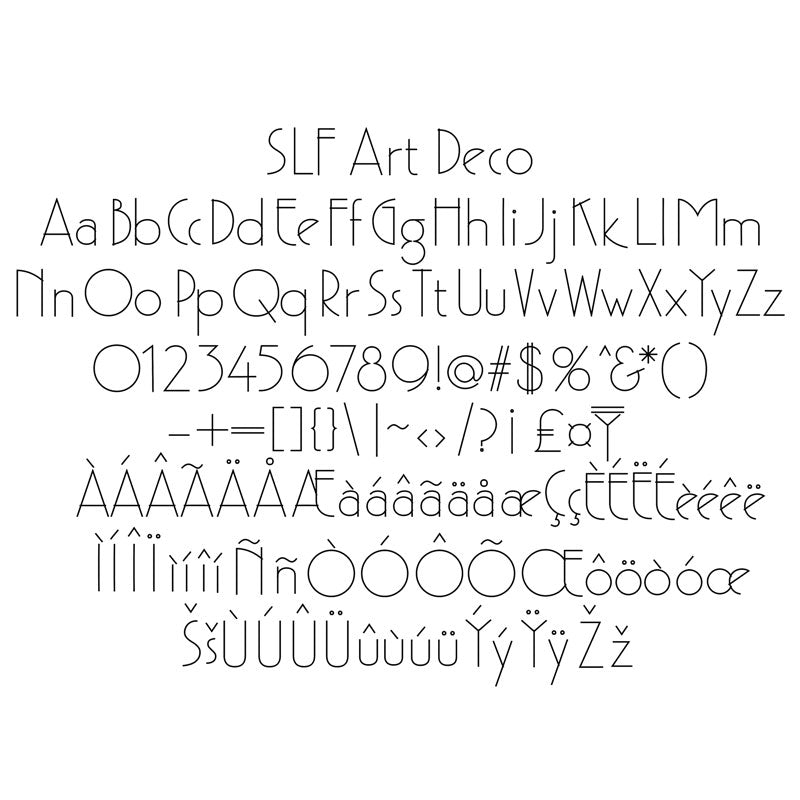
SLF Art Deco – Vintage-Inspired Single Line Font for Engraving & Design
SLF Art Deco is a bold, geometric single line print font inspired by streamlined 1920s and 1930s design. Its stylish architectural letterforms add a distinctive vintage flair to engraving, scoring, CNC routing, and creative craft projects. Ideal for signage, labels, décor pieces, event invitations, and custom gifts that demand eye-catching typography.
This monoline font includes a full character set with uppercase and lowercase letters, numbers, punctuation, symbols, and accented characters for multilingual support.
• Vintage-style signage, event décor, labels, and monogrammed gifts